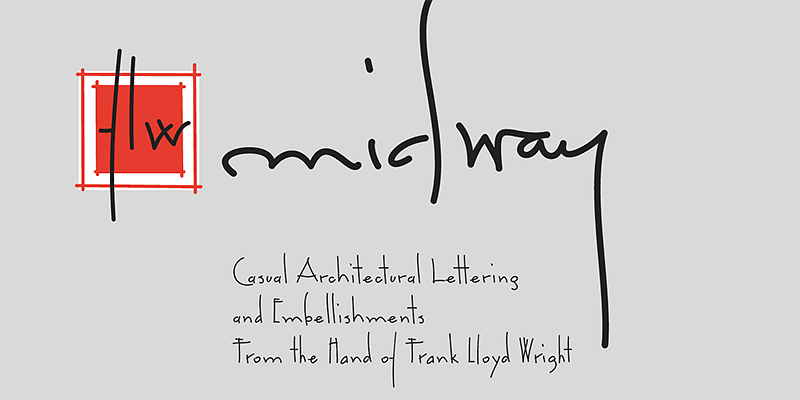
P22 FLW Midway
P22 FLW Midway is a bit more casual than standard architectural lettering, based on Frank Lloyd Wright's hand-lettering found on the Chicago Midway Gardens working drawings from 1913.